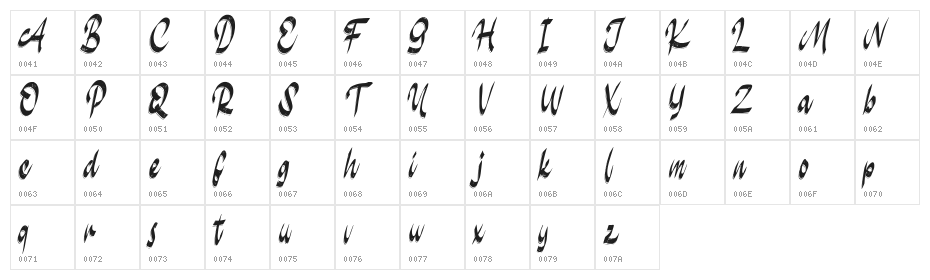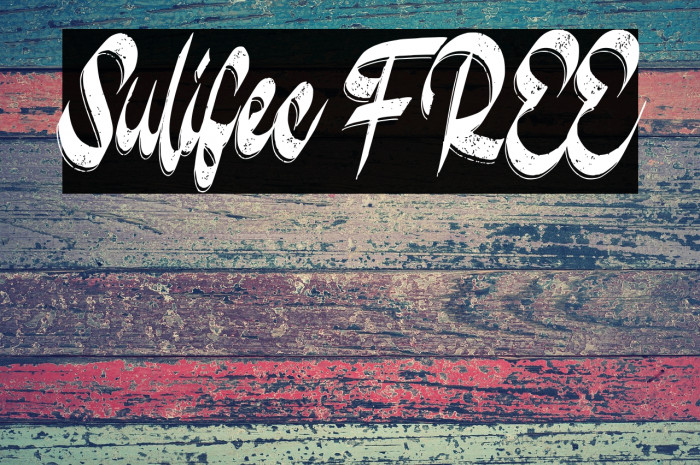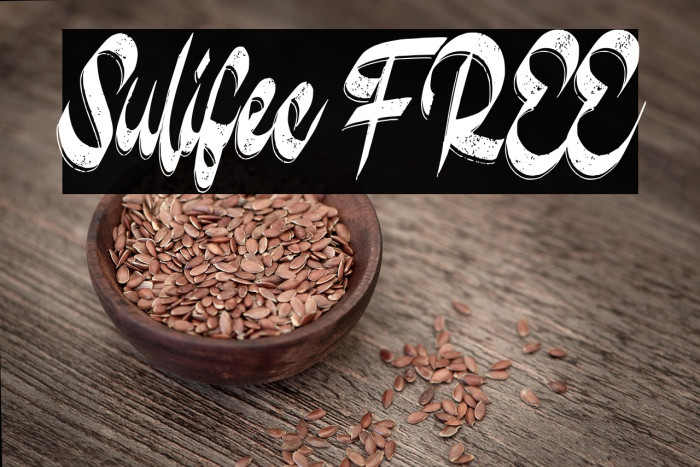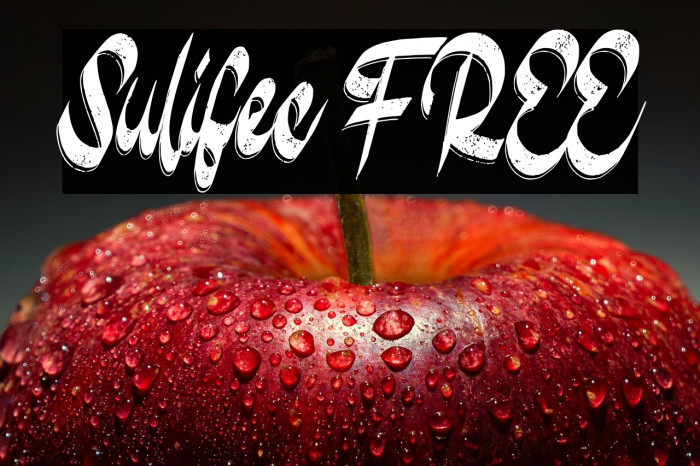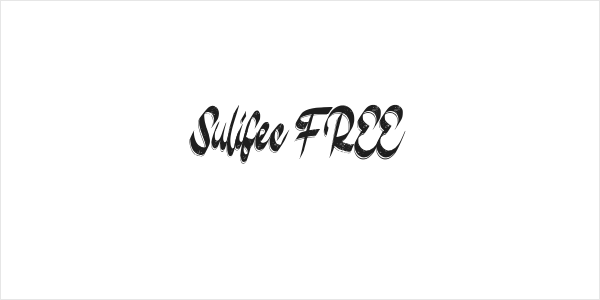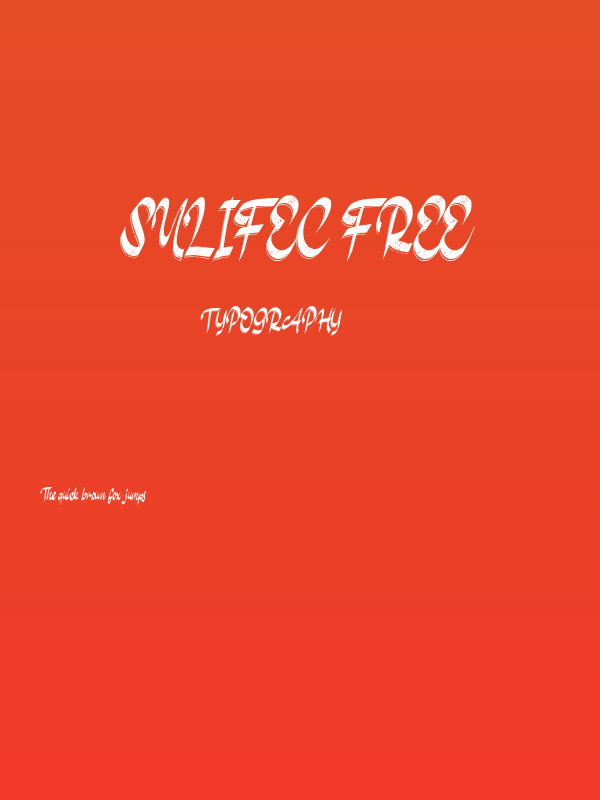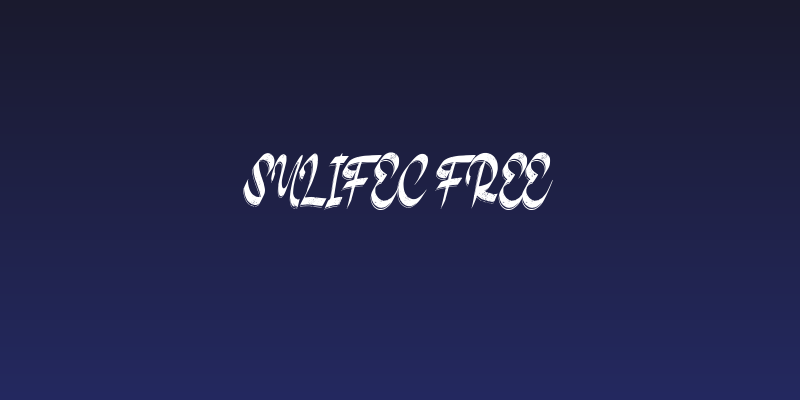
Sulifec FREE Font
Sulifec FREE Description
This font exhibits a dynamic and energetic script style, characterized by its bold, sweeping strokes and a sense of fluid motion. The letters are interconnected, creating a sense of continuity and flow. The uppercase and lowercase letters maintain a consistent style, with exaggerated curves and a slightly slanted orientation, adding to the font's expressive nature. The boldness of the strokes is complemented by subtle variations in thickness, giving it a textured, almost brush-like appearance. This font is designed to capture attention and convey a sense of creativity and flair.
| Proposed Projects | Ideal for branding, logo design, posters, and invitations where a creative and expressive touch is desired. |